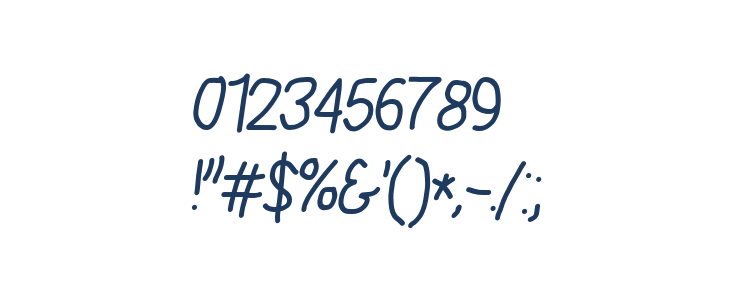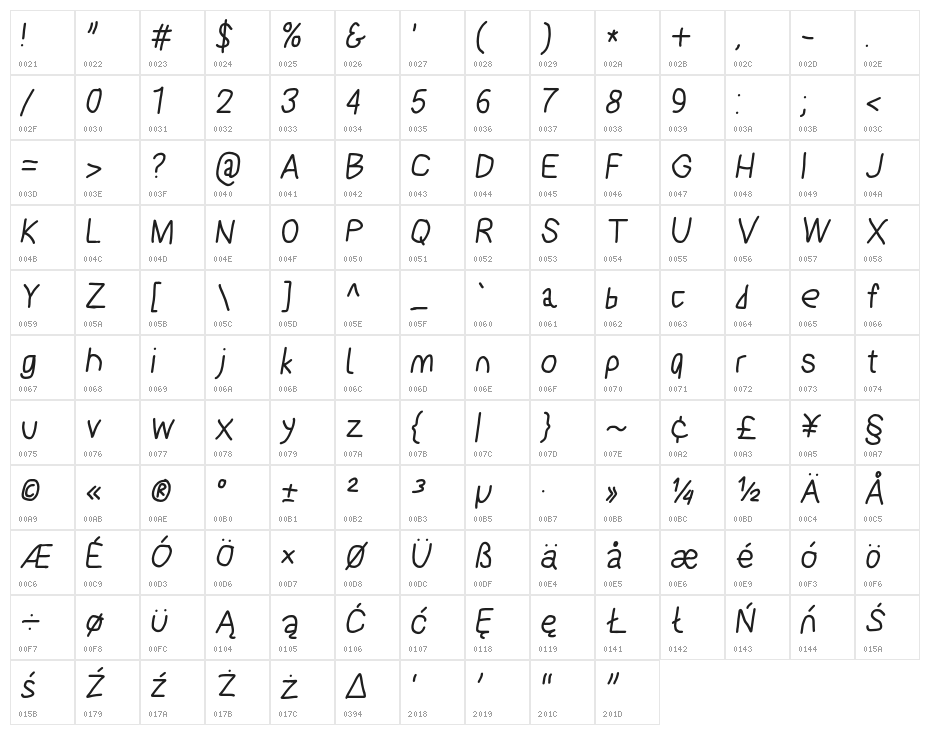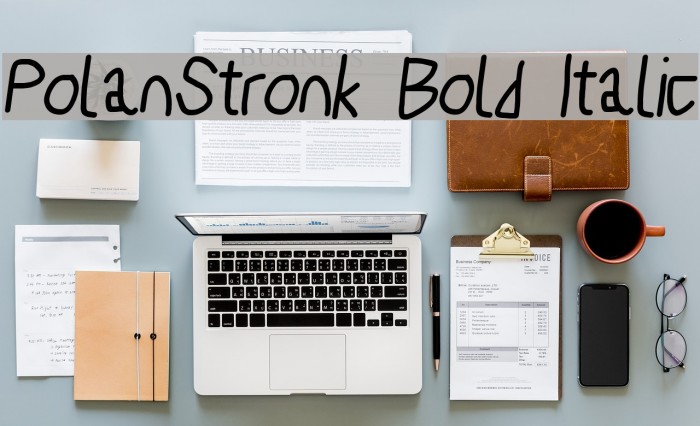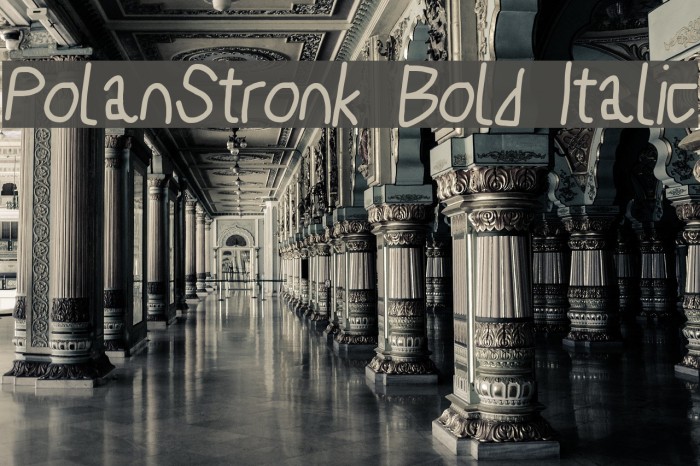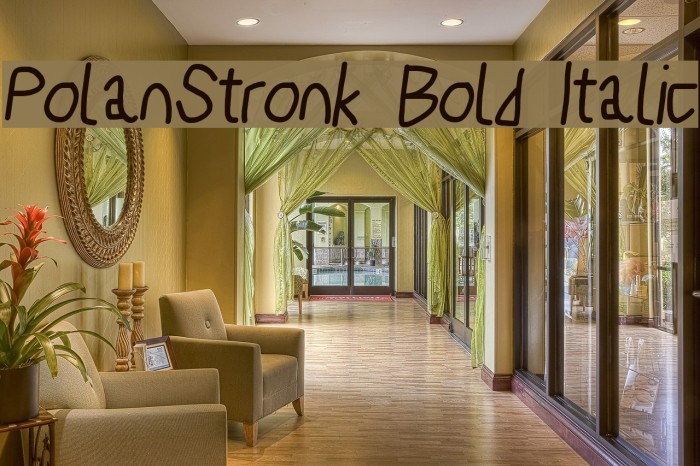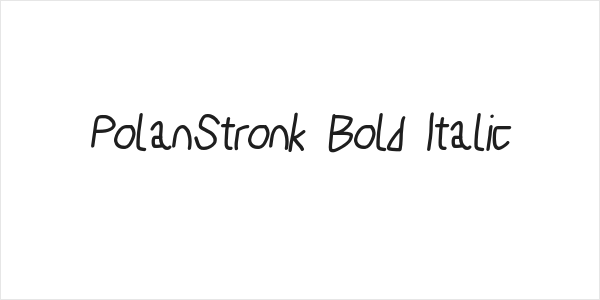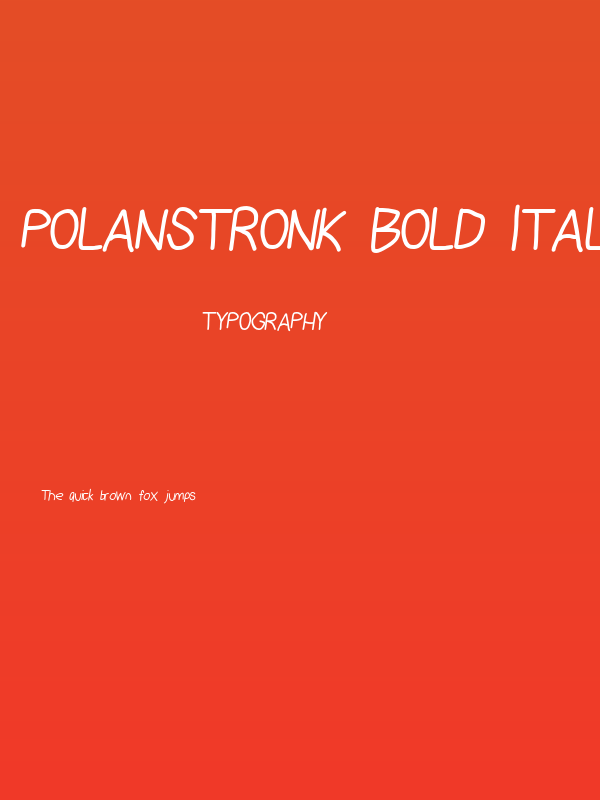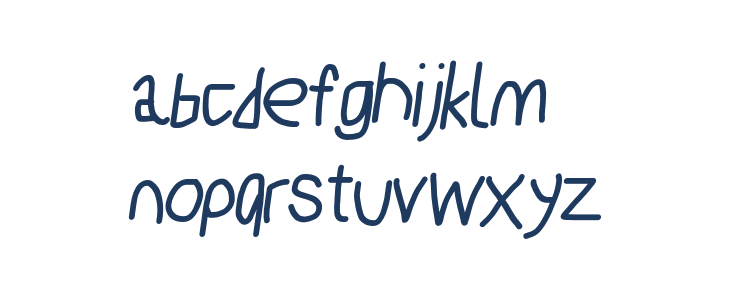
PolanStronk Bold Italic Font
PolanStronk Bold Italic Description
This font features a playful and casual handwritten style, characterized by its bold and italicized appearance. The letters are slightly slanted, giving a dynamic and energetic feel. The strokes are thick and consistent, providing a sense of boldness and confidence. The characters are well-spaced, ensuring readability while maintaining a lively and informal aesthetic. The font includes a full set of uppercase and lowercase letters, numbers, and a variety of special characters, making it versatile for different design needs. Its unique style is suitable for projects that require a personal touch or a fun, informal vibe.
| Use Case | Logos, Headlines, Informal Text |
| Proposed Projects | Ideal for greeting cards, children's books, playful branding, and social media graphics. |